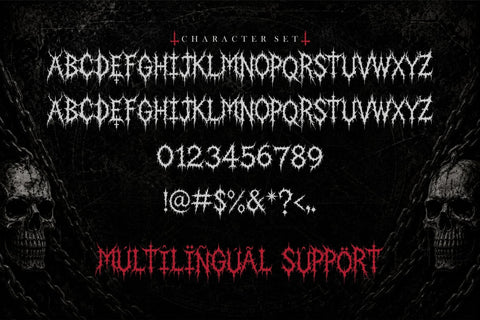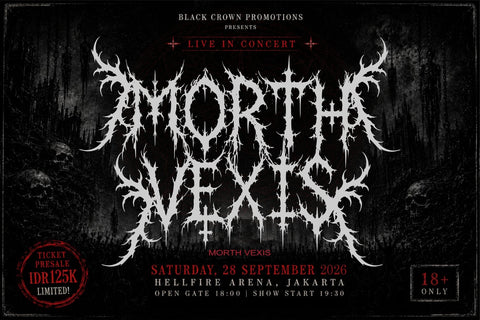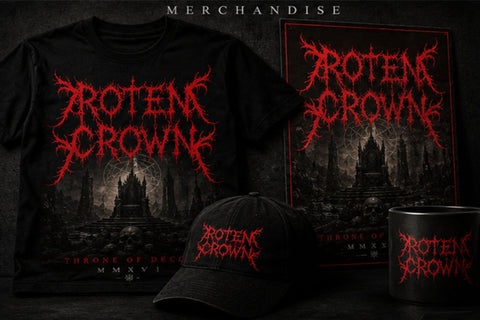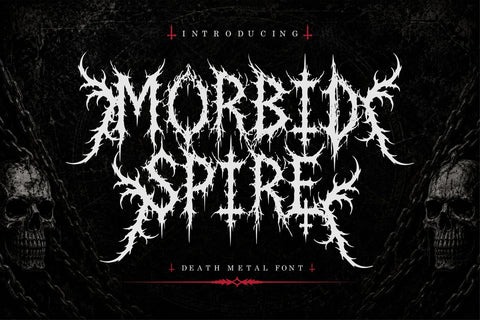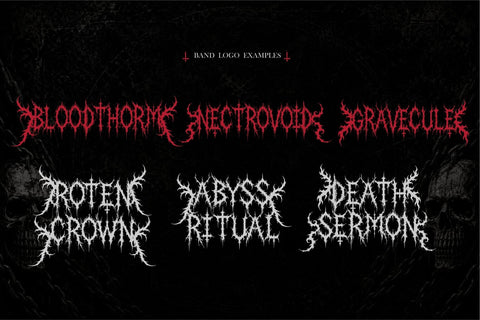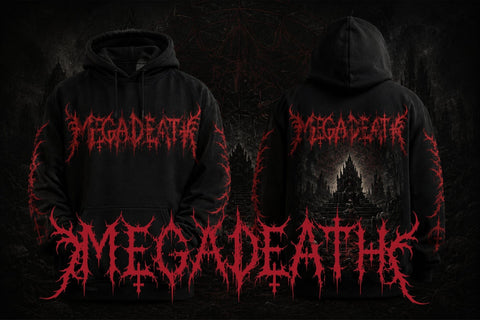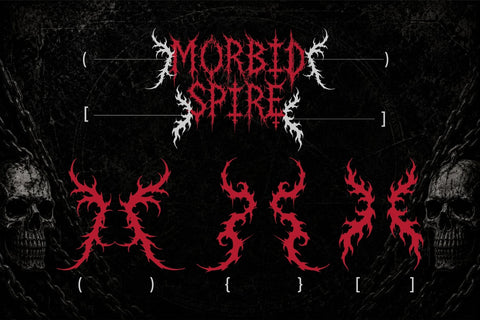
Morbid Spire – Death Metal Font
Enter the darkest side of typography with Morbid Spire, an extreme Death Metal Font created for artists, musicians, designers, and creators who demand aggressive visuals with unmistakable underground character. Inspired by black metal logos, death metal band artwork, gothic horror, occult symbolism, twisted branches, and organic thorn structures, Morbid Spire transforms ordinary text into chaotic visual art.
Every letter is handcrafted with razor-sharp spikes, dripping branches, and tangled forms that emulate the iconic style found across extreme metal culture. The font is intentionally wild, dense, and atmospheric, making every word feel mysterious, brutal, and unforgettable.
Morbid Spire includes uppercase characters, numbers, punctuation, and multilingual support, providing everything needed to create powerful titles, logos, and graphic compositions while maintaining an authentic underground aesthetic.
Perfect for:
- Death Metal Logos
- Black Metal Band Names
- Doom Metal Artwork
- Album Covers
- Vinyl Packaging
- Horror Movie Posters
- Dark Fantasy Book Covers
- Occult Branding
- Gothic Apparel
- Festival Posters
- Tattoo Studio Branding
- Halloween Graphics
- Alternative Merchandise
- Extreme Music Promotion
- Underground Zines
The dramatic silhouettes immediately create a recognizable death metal identity. Each character intertwines naturally with the next, allowing logos to appear organic and handcrafted rather than digitally constructed.
Morbid Spire excels in large display settings where every thorn, spike, and branch can be fully appreciated. Pair it with distressed textures, monochrome palettes, smoke, grunge overlays, cracked stone, blood effects, skull artwork, or medieval illustrations to create an unforgettable visual identity.
Although rooted in black and death metal culture, Morbid Spire also works beautifully for dark fantasy games, horror branding, gothic events, occult podcasts, medieval artwork, mystical apparel, dark photography, and supernatural promotional graphics.
Designers searching for a truly authentic death metal font, black metal logo font, occult display font, or extreme horror typeface will appreciate the handcrafted complexity and brutal visual rhythm that define Morbid Spire.
The font captures the raw atmosphere of underground music while remaining highly expressive across posters, album artwork, streaming thumbnails, social media campaigns, merchandise, and promotional materials.
Whether creating the next underground band identity or producing dark fantasy visuals, Morbid Spire delivers a terrifying typographic experience that feels chaotic, ancient, and beautifully sinister.